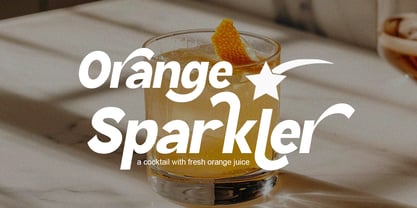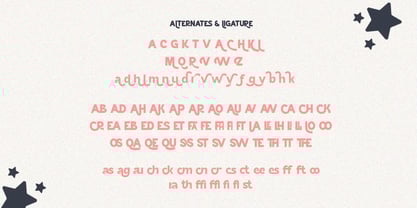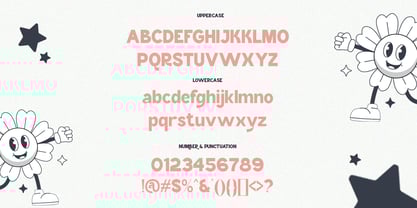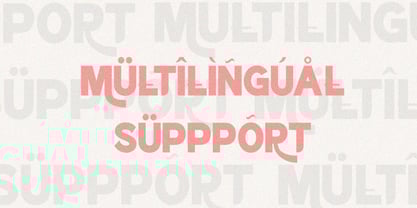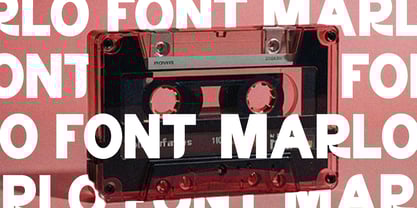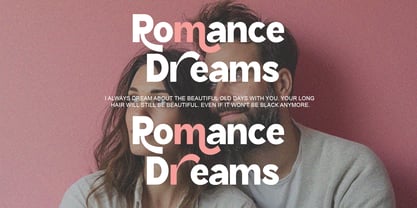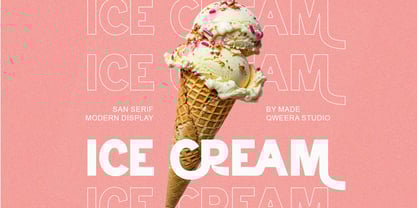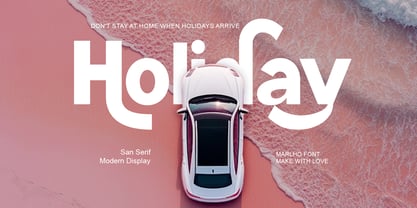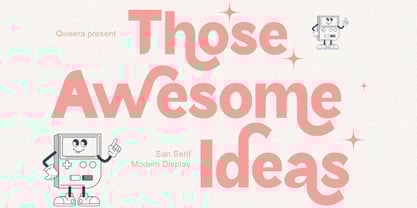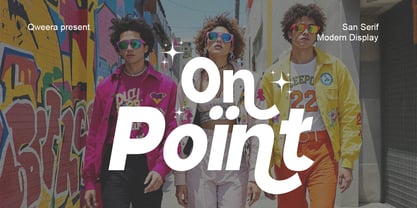
Marlho
by Qweera Studio
The Marlho Font Family was designed by Idhham Cholid Rikzano Yahya and published by Qweera Studio. Marlho contains 2 styles and family package options.
Marlho - Modern Sans Serif Font for Contemporary Branding
Marlho is a sleek sans-serif typeface that combines minimalist precision with stylish versatility. Featuring refined alternates and elegant ligatures, this font is expertly crafted for modern branding, clean logo designs, sophisticated packaging, and contemporary editorial layouts that demand clarity and style.
Where Minimalist Design Meets Creative Flexibility
With its crisp lines and balanced proportions, Marlho delivers exceptional adaptability for brands seeking both modernity and character. The thoughtfully designed alternates and ligatures allow for customized typographic expressions that maintain a professional yet distinctive aesthetic.
Premium Features Include:
• Modern Sans-Serif Design – Clean, geometric letterforms
• Stylish Alternates – 15+ character variations
• Elegant Ligatures – Seamless letter connections
• Universal Application – From digital interfaces to print media
• Extended Latin Support – Comprehensive character set
Elevate Your Brand with Marlho's Contemporary Edge Ideal for:
• Tech startup branding
• Minimalist logo design
• Luxury product packaging
• Editorial typography
• Corporate identity systems
Designers: Idhham Cholid Rikzano Yahya
Publisher: Qweera Studio
Foundry: Qweera Studio